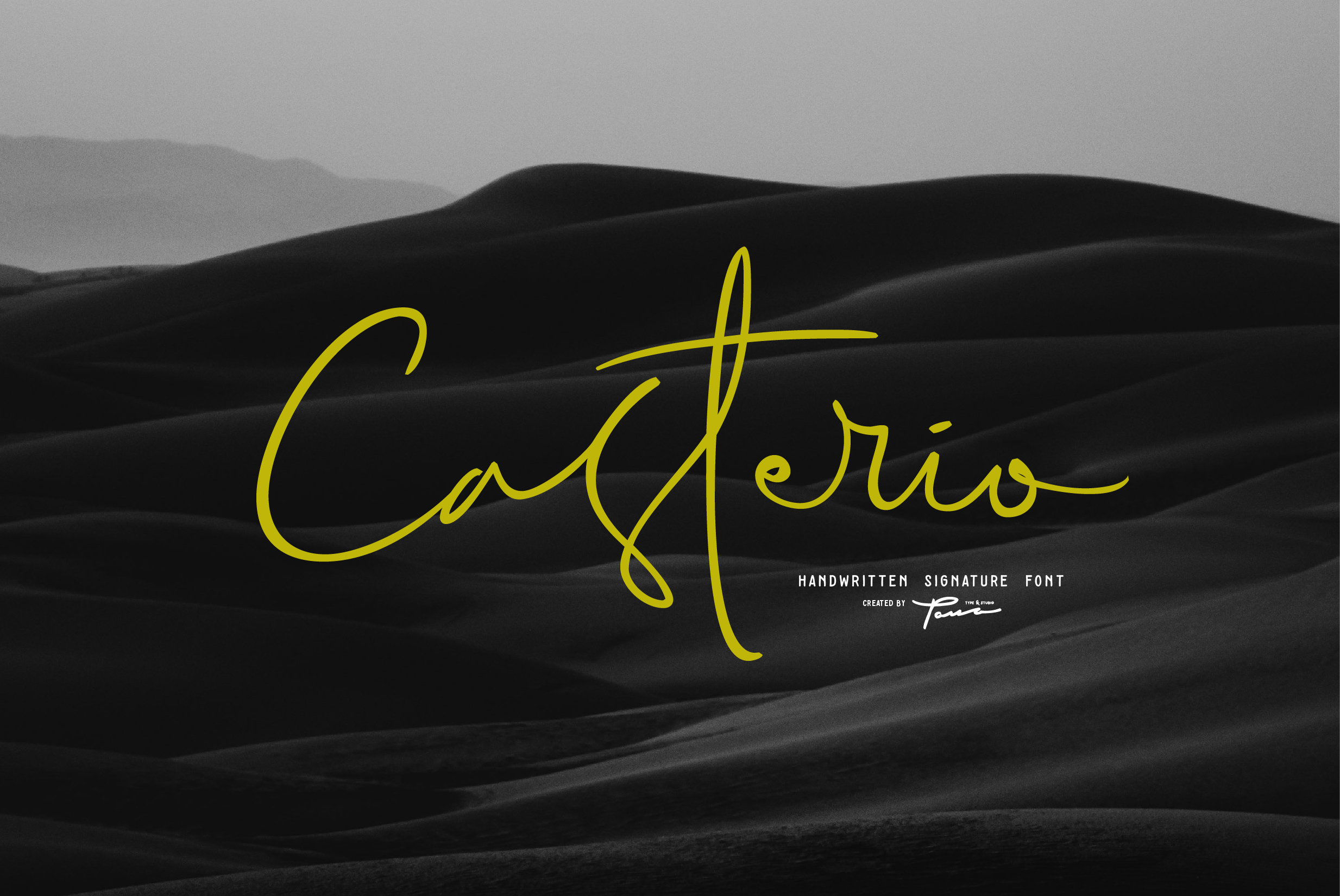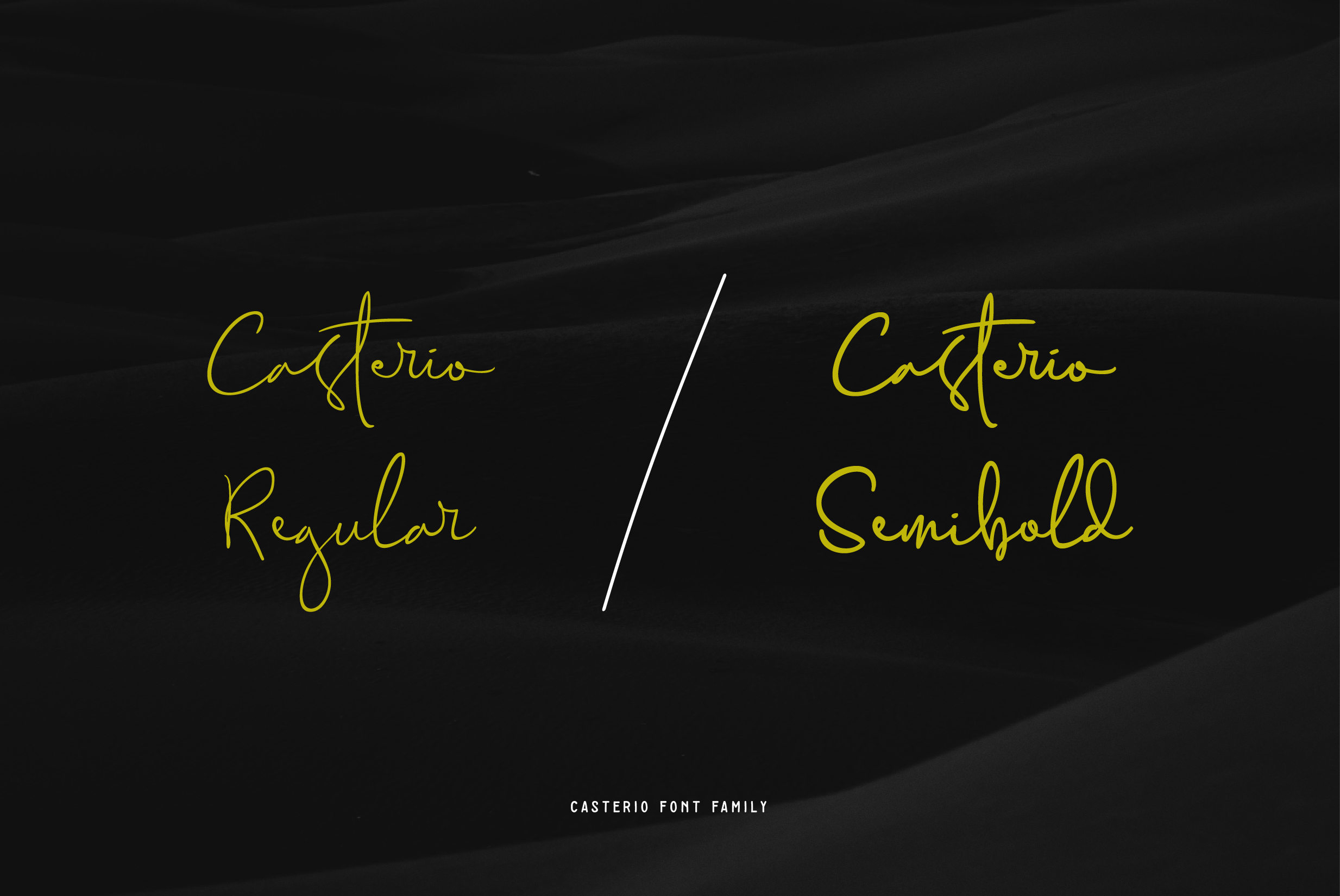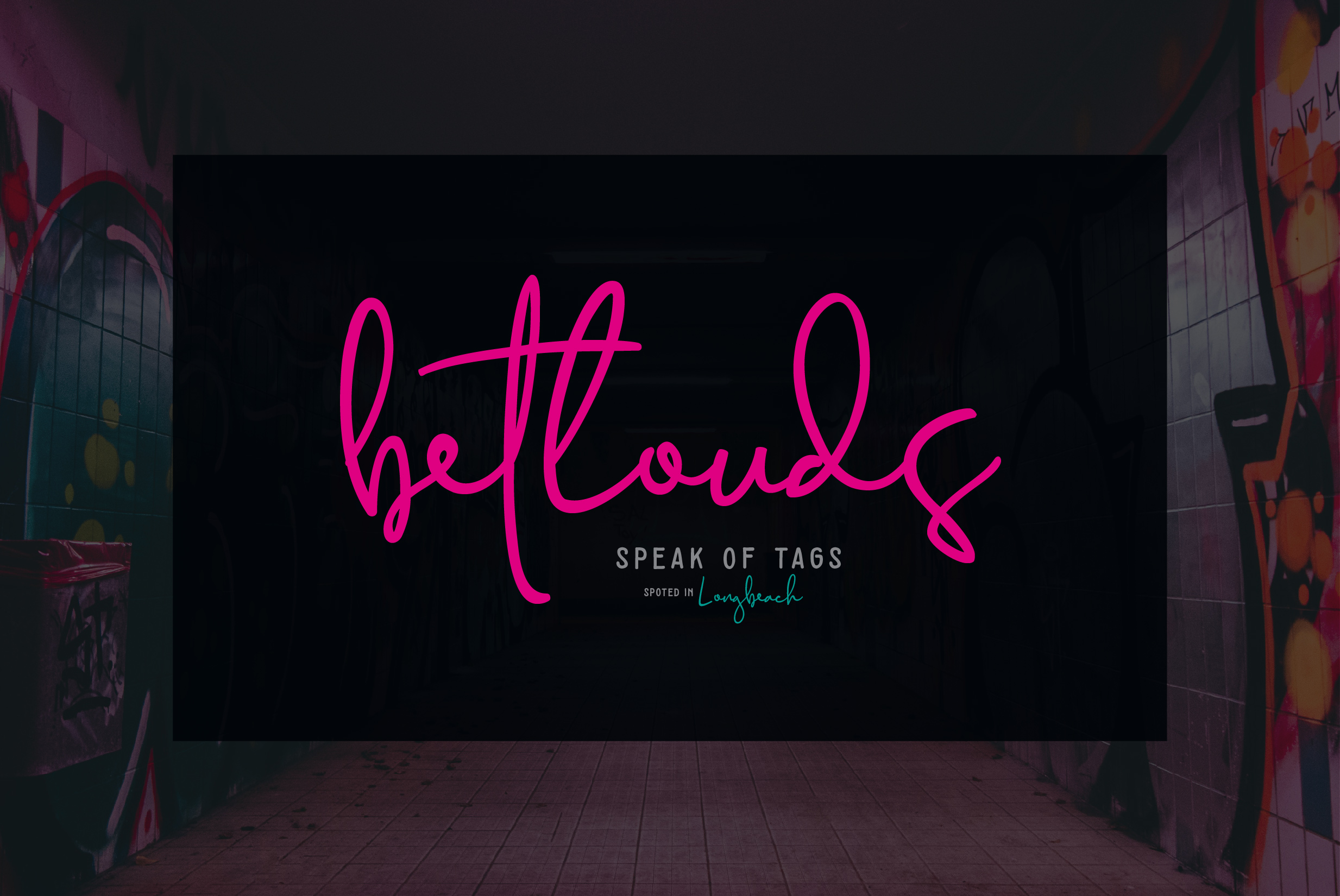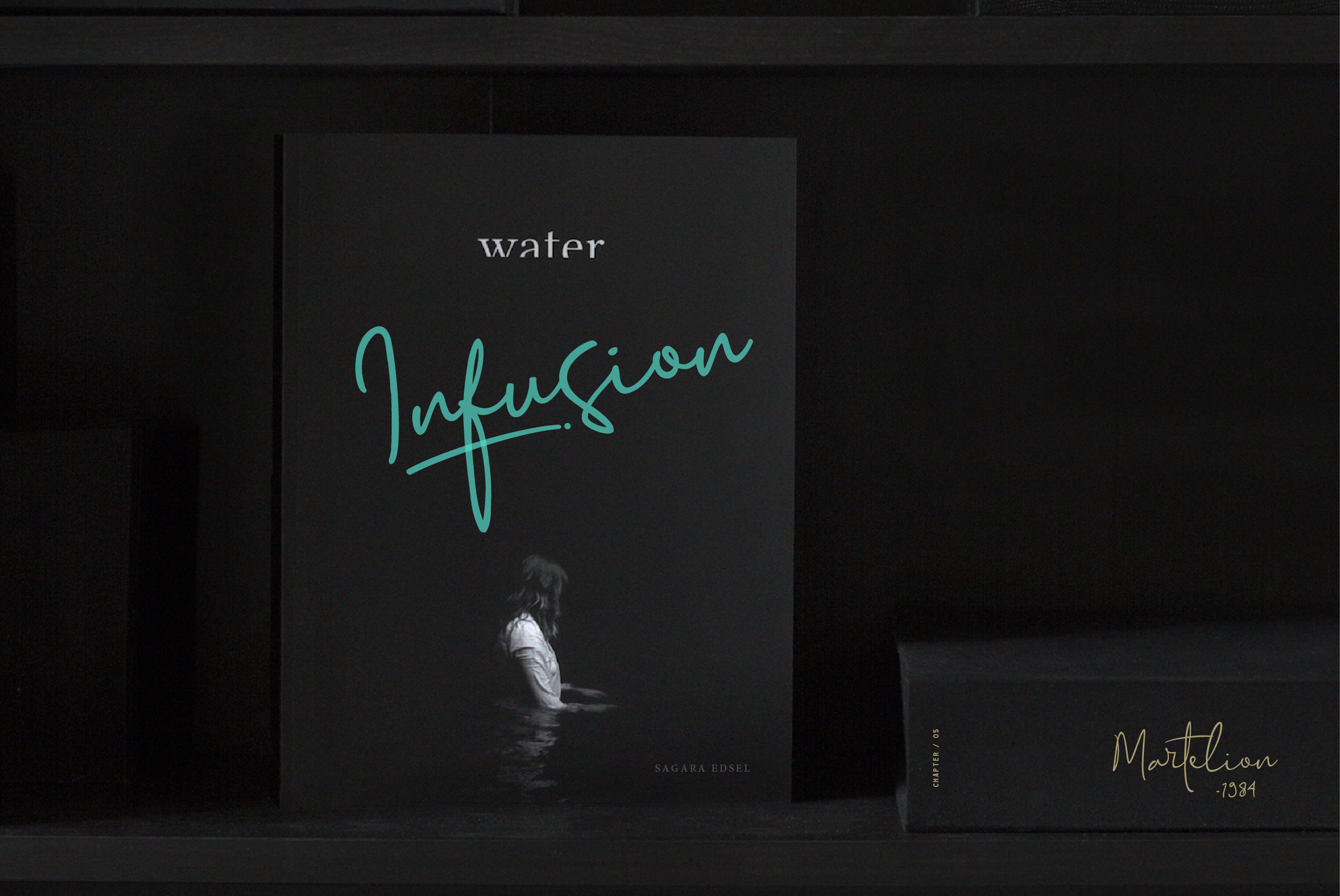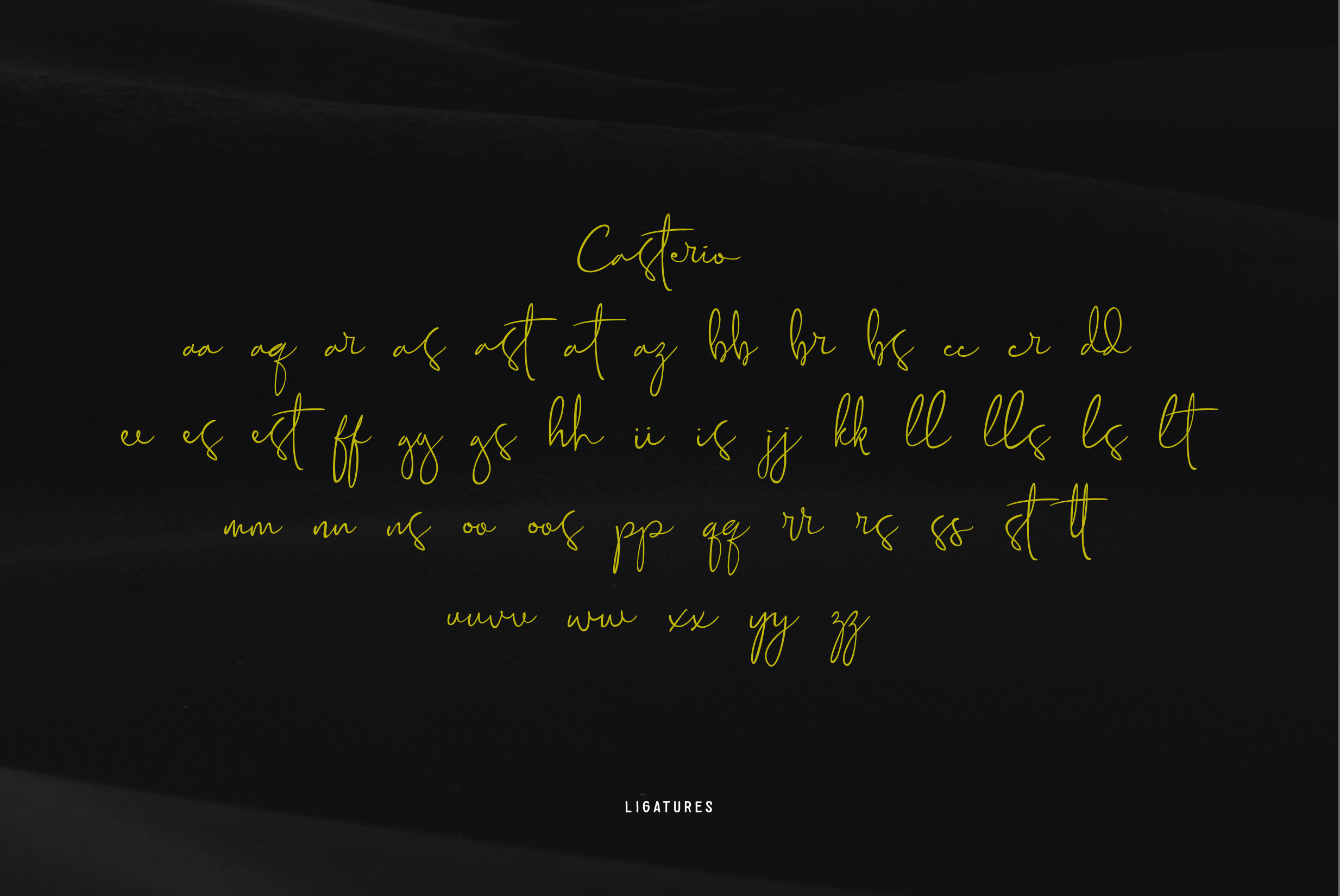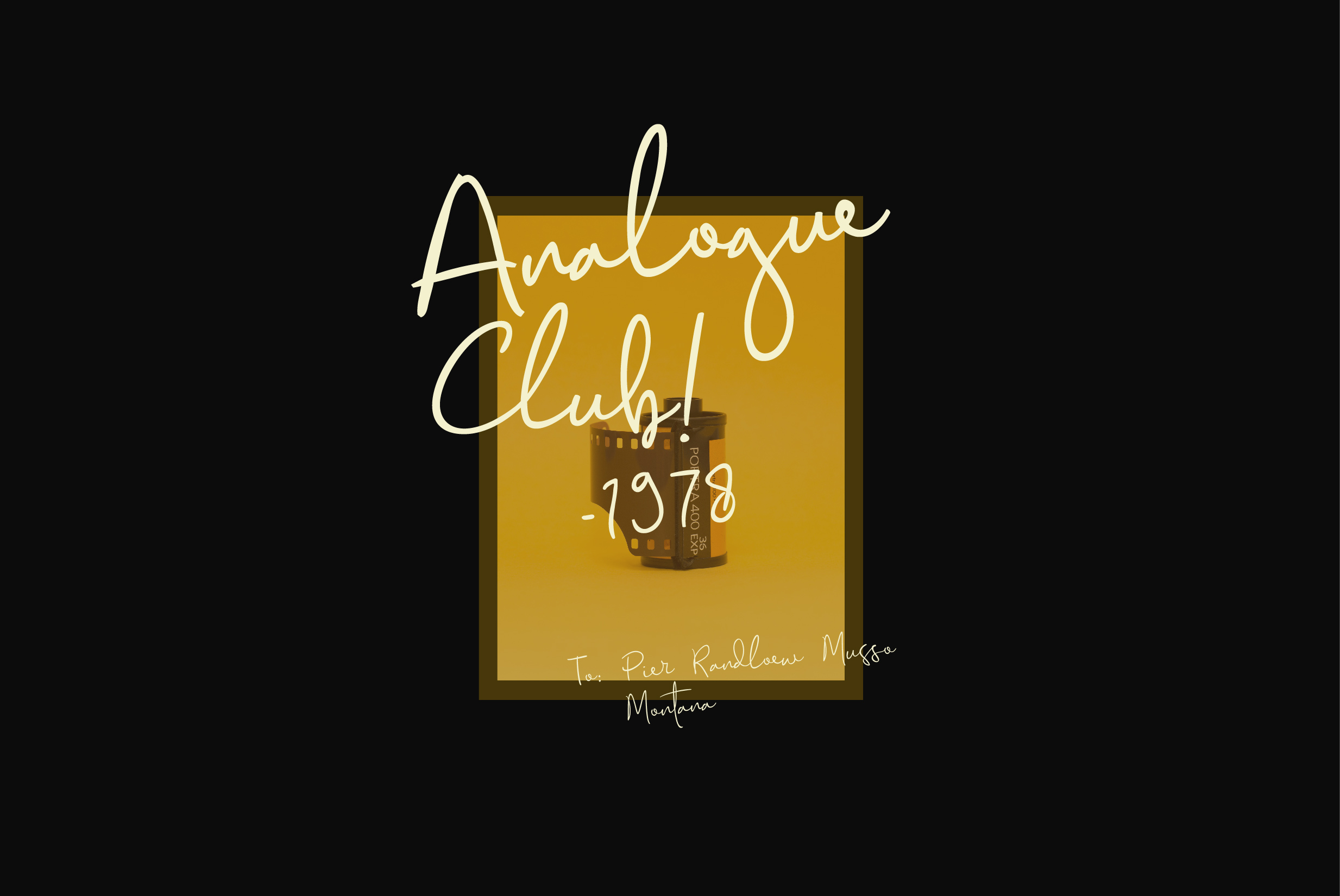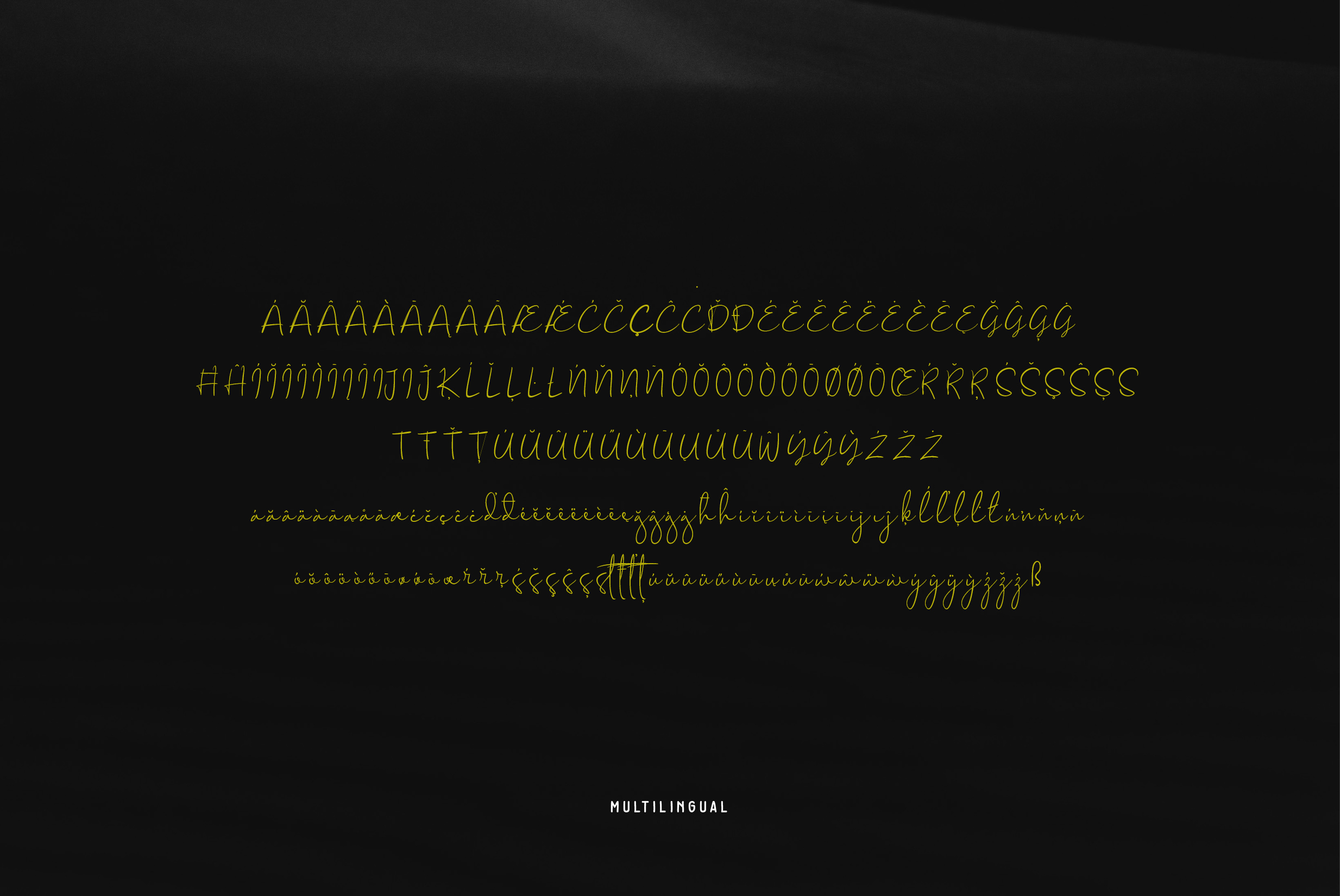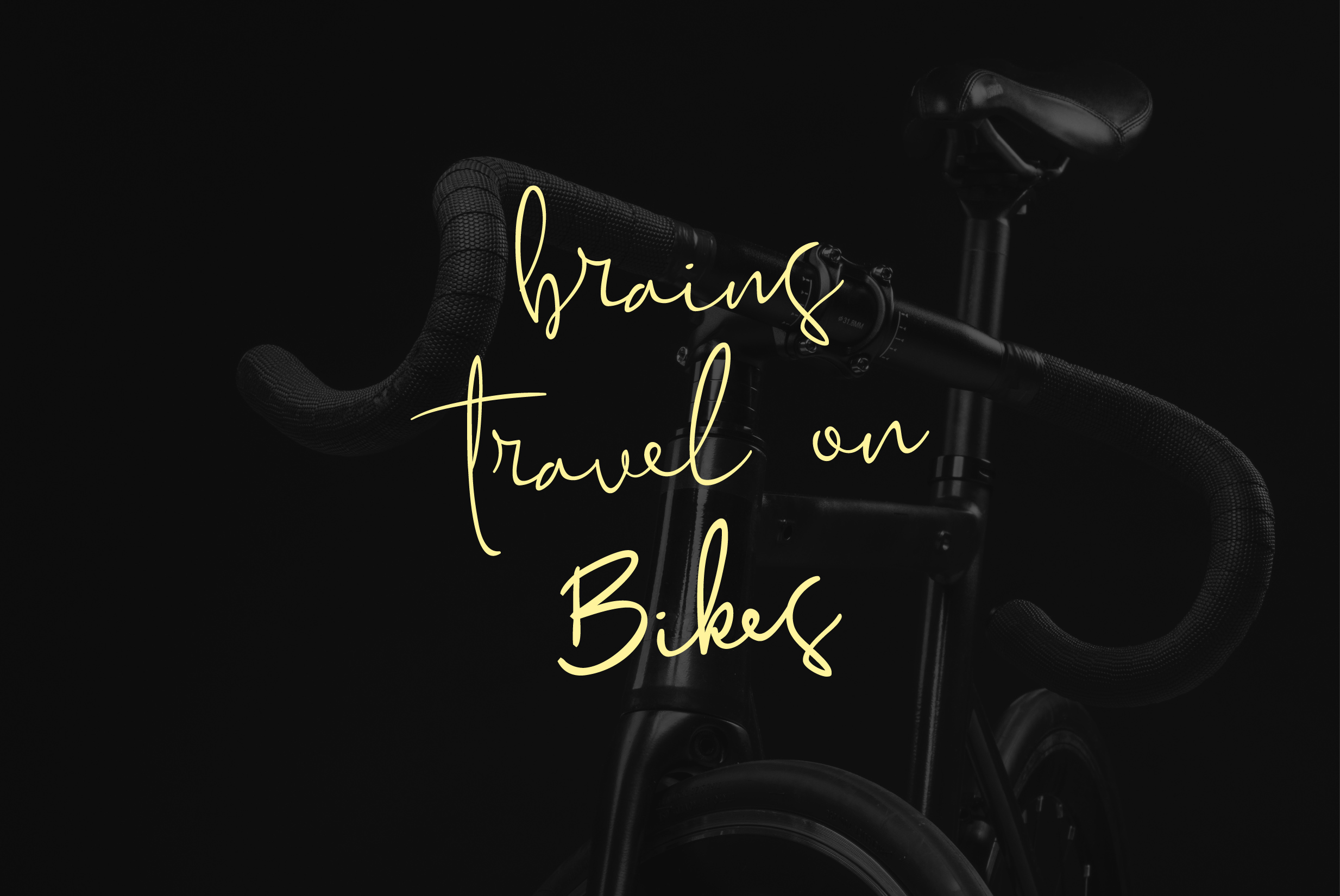
Casterio Font
About Casterio Font
Casterio is a gorgeous, thin signature font that was carefully crafted to have an appealing modern feel with unparalleled style. This font was crafted to have a carefree and relaxed vibe.